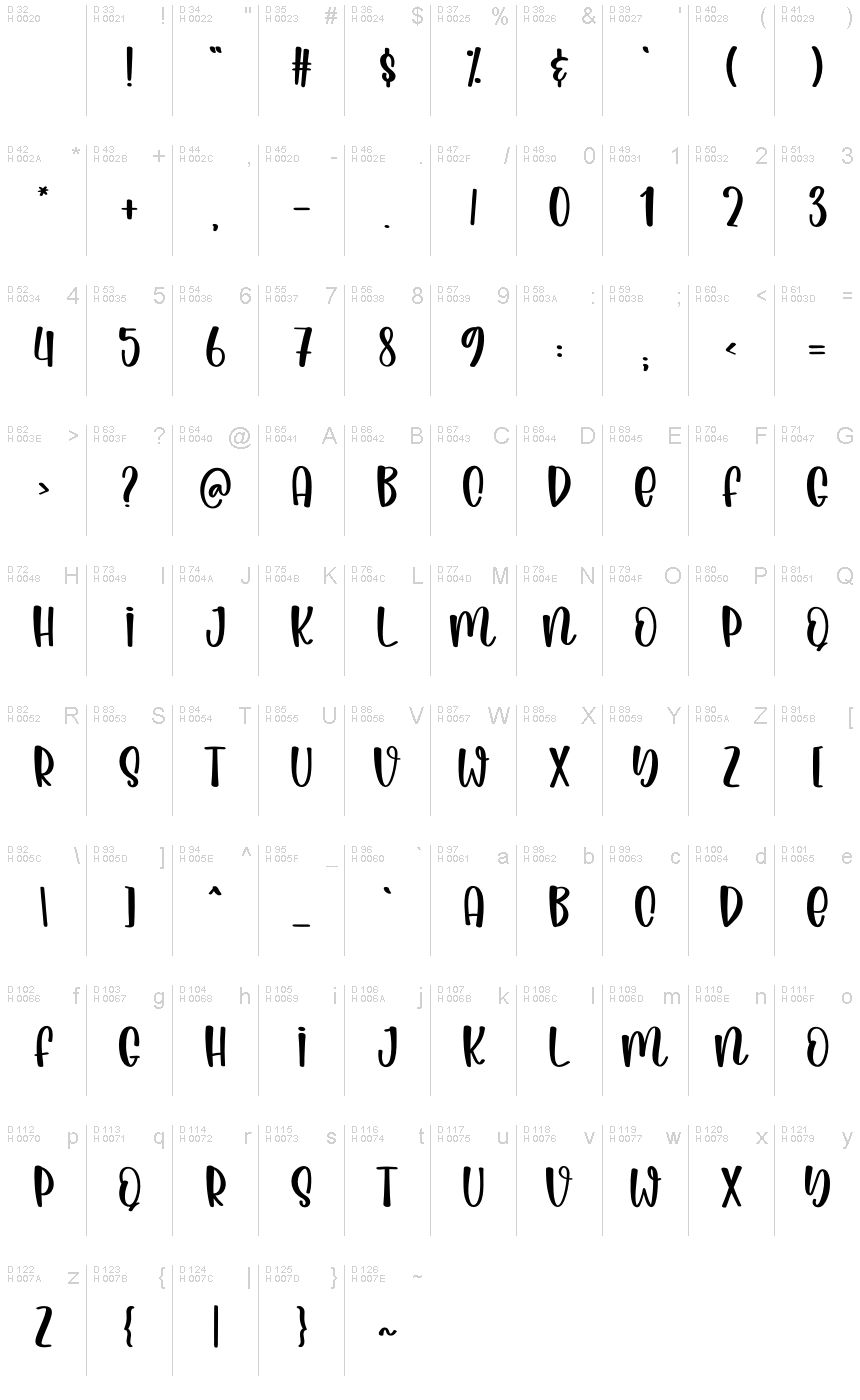
Magic Tumbler
Magic Tumbler font by PiPi Creative embodies a whimsical handwritten style, brimming with personality and charm. Its striking condensed form adds a playful elegance, ensuring that each letter dances with vibrant energy while maintaining clarity. The unique strokes give it a flowing yet dynamic feel, making it effortlessly eye-catching.
Visually captivating, Magic Tumbler is perfect for designs that require a touch of creativity and warmth. Whether used in branding, invitations, or social media graphics, this font speaks to an audience seeking authenticity and individuality. Its distinctive flair can elevate any project, making it ideal for conveying joy and spontaneity while remaining approachable and engaging.